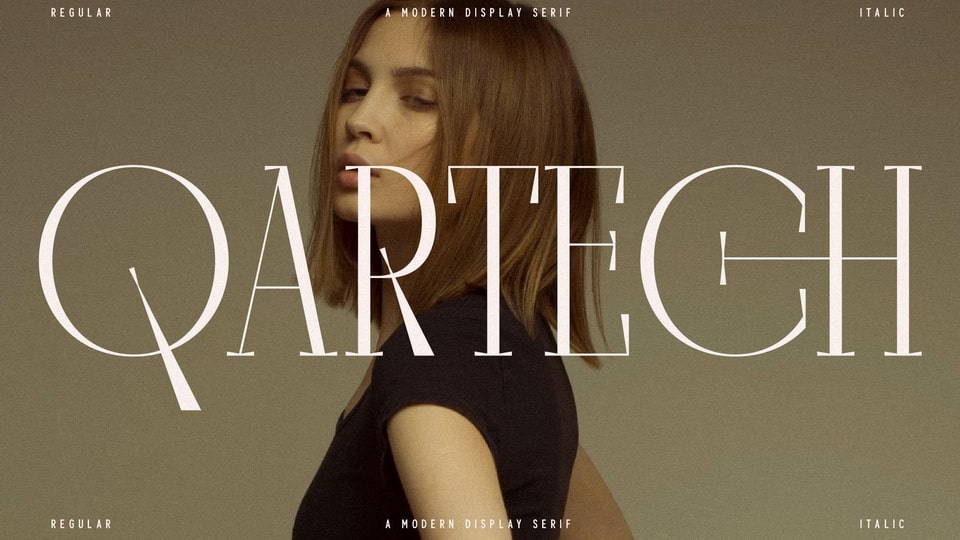
Download Qartech font, a modern serif typeface designed to exude timeless elegance and contemporary refinement. Qartech font is the perfect choice for projects that demand a touch of class and sophistication.